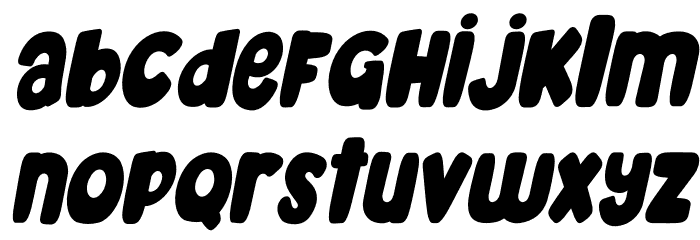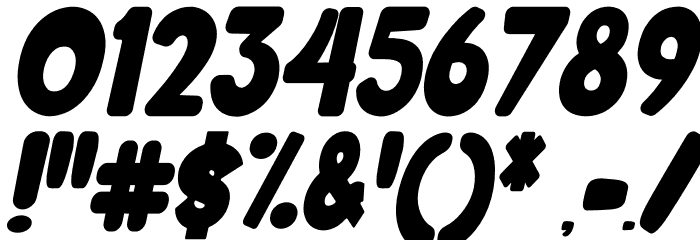
Mahoney Higher Tilted Font
This font features a bold, playful style with rounded edges and a slightly tilted appearance, giving it a dynamic and energetic feel. The characters are thick and robust, making them highly visible and impactful. The uppercase and lowercase letters maintain a consistent style, with a slight slant that adds to the font's whimsical nature. Numbers and special characters are equally bold and rounded, ensuring uniformity across all elements. This font's unique style makes it suitable for projects that require a fun and engaging look.
A bold, playful font with rounded edges and a slight tilt.
- Font: Mahoney Higher Tilted
- Proposed Projects: Ideal for children's books, playful branding, posters, and event invitations.
- Overall Style: Playful